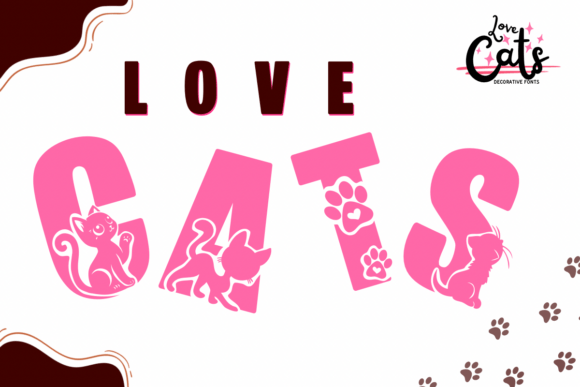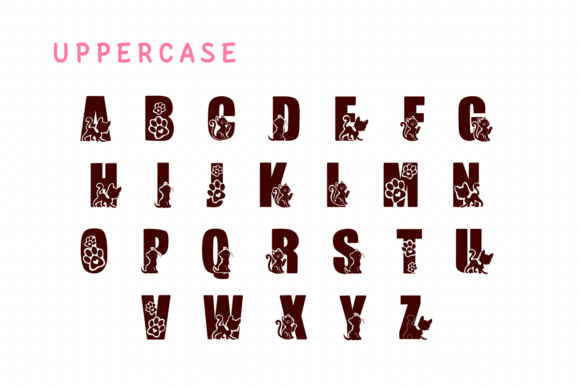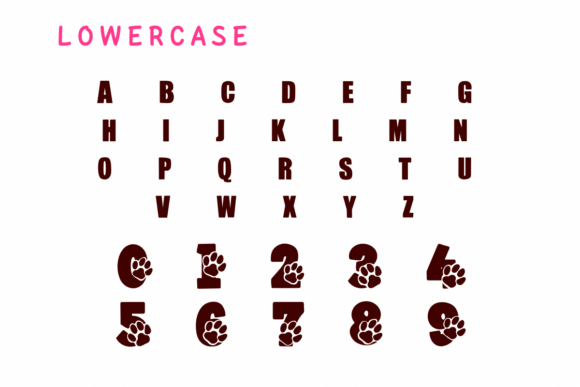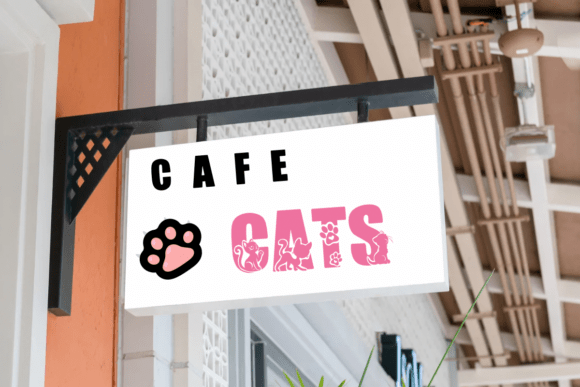
Love Cats Font: A Cute Decorative Font for Cricut & DIY Projects
About the Love Cats Font
Discover the charm of Love Cats Font. This font is a perfect blend of modern aesthetics and classic appeal. Love Cats is a Decorative font. You can use it for taking notes, writing a diary, or making greeting cards. However, you can still use it for other designs, such as banners, content, mugs, cards, shirts, stationery, social media posts, and more!
Love Cats’ decorative nature makes it ideal for headlines, short text blocks on posters, and branding elements where a playful, slightly quirky feel is desired. It works well for packaging of whimsical products or for social media graphics needing a touch of personality. However, its ornate details make it unsuitable for body text or UI elements; legibility suffers in smaller sizes or continuous reading.
Its inherent charm pairs well with clean sans-serif fonts like Open Sans for a balanced contrast, or a more geometric sans-serif like Futura for a modern edge. For a touch of elegance, consider pairing it with a classic serif like Garamond, tempering its playful energy with sophisticated restraint.
Love Cats projects a friendly, approachable personality with a hint of retro charm, making it perfect for brands targeting a younger demographic or those wishing to convey a sense of fun and lightheartedness.